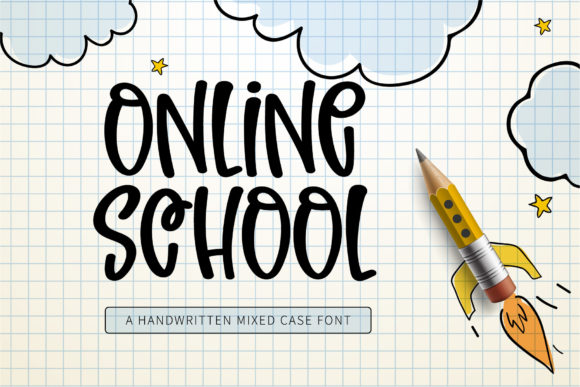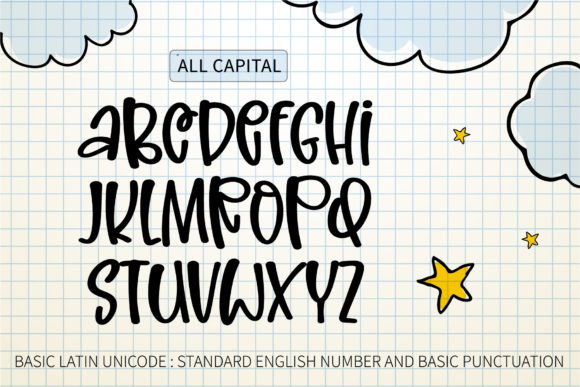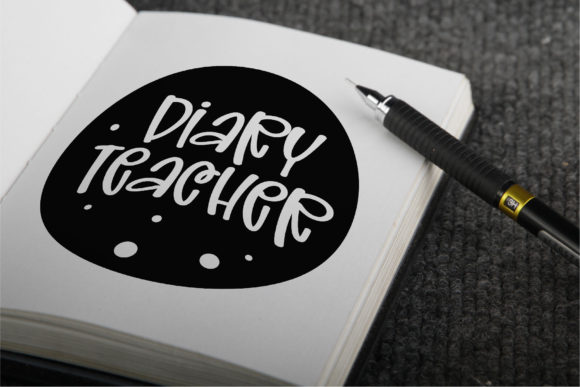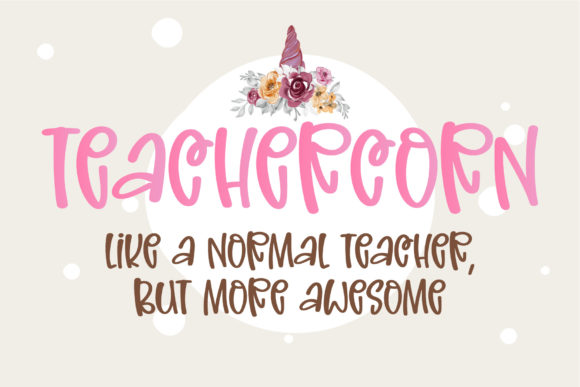
Online School Font
About the Online School Font
From logos to headlines, the Online School Font is the perfect choice for making a lasting impression. Online School is a cool, friendly, and informal handwritten font, that can be used for all chalkboard quotes or teaching material! Its authentic look and feel will add a personal and realistic feel to your designs.
Online School’s informal style works best for headlines, short text blocks on posters or social media graphics, and branding elements needing a friendly, approachable feel. It’s ideal for educational projects, children’s products, or brands targeting a younger demographic. Avoid using it for body text or long-form content; its handwritten nature reduces readability at smaller sizes.
For effective pairings, consider a clean sans-serif like Open Sans for body copy or a geometric sans-serif like Futura for a more modern contrast. A playful script font could also complement its informal charm, though ensure sufficient contrast for legibility.
The font’s overall personality is undeniably friendly and approachable, conveying a sense of warmth and approachability. Its slightly imperfect, handwritten aesthetic enhances its informal and personal character.
Online School Font Usage Examples
Online School Font Example